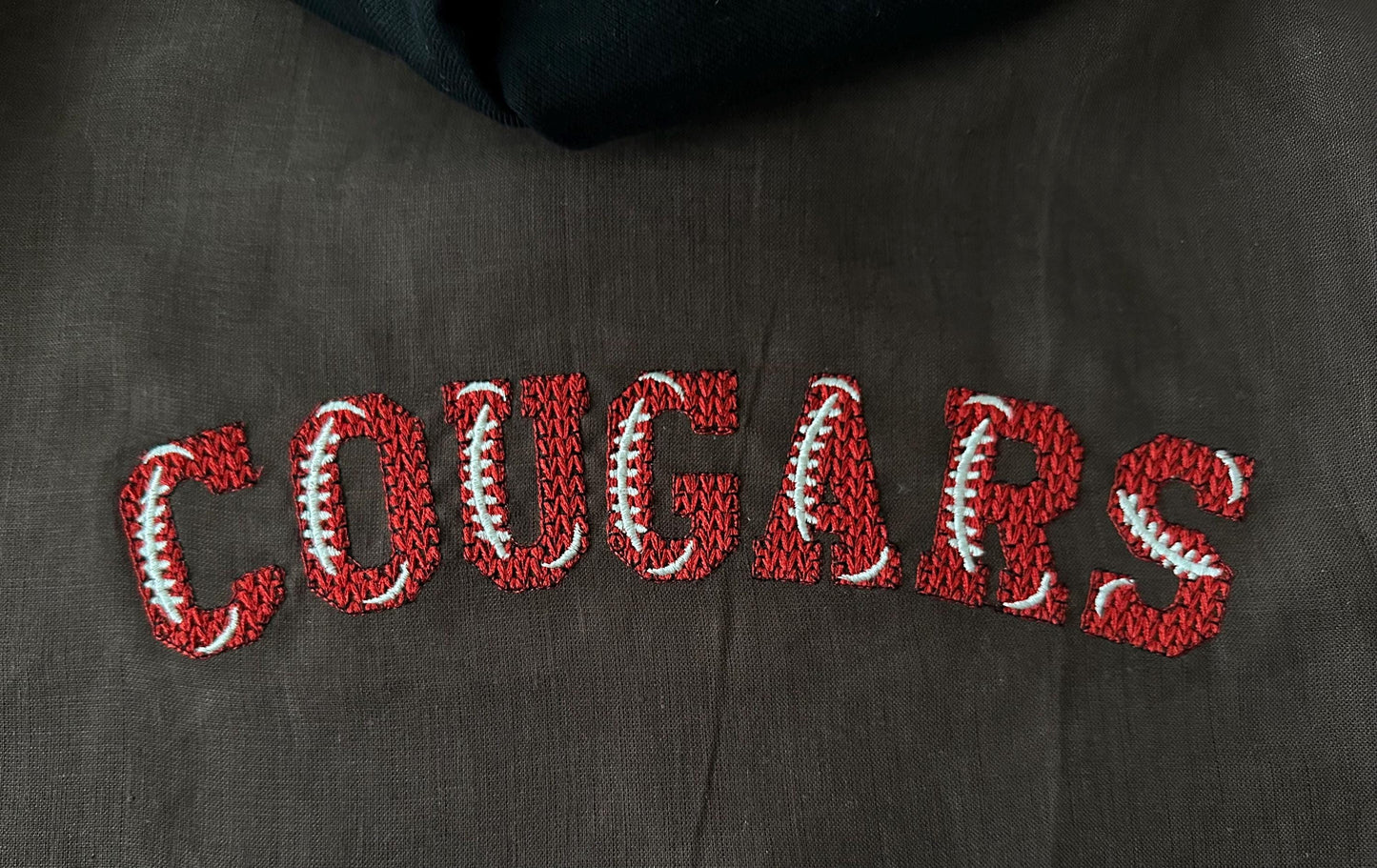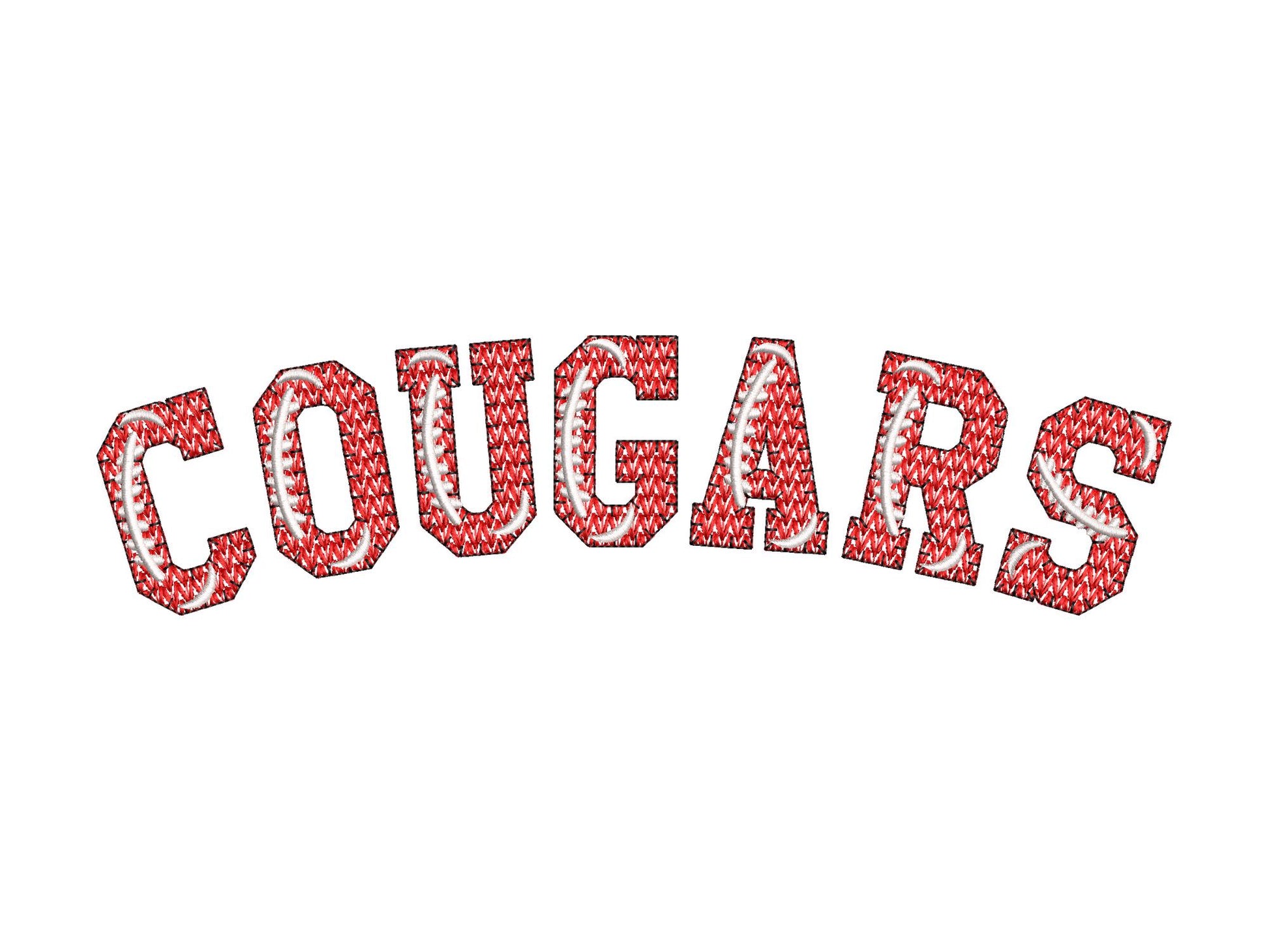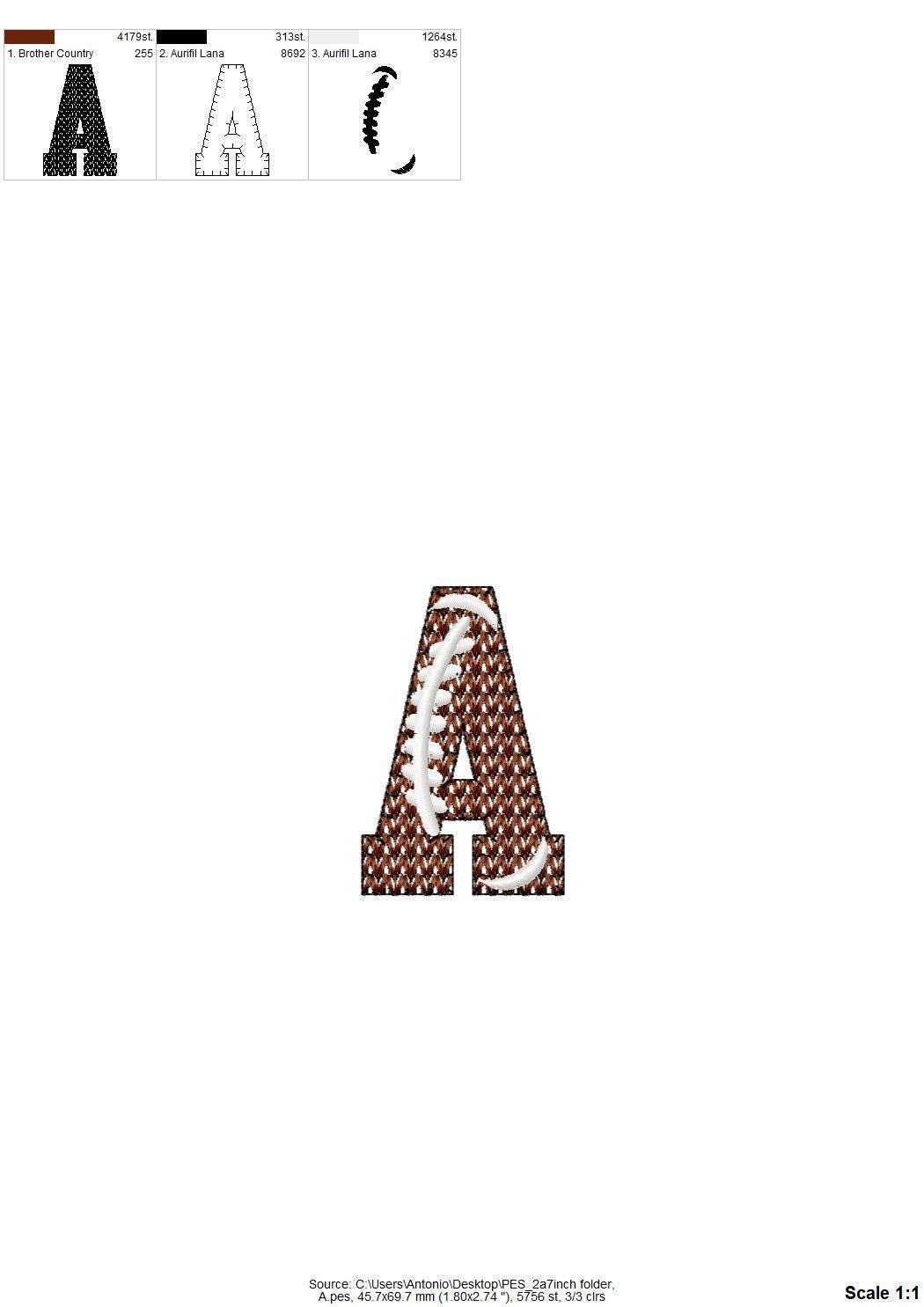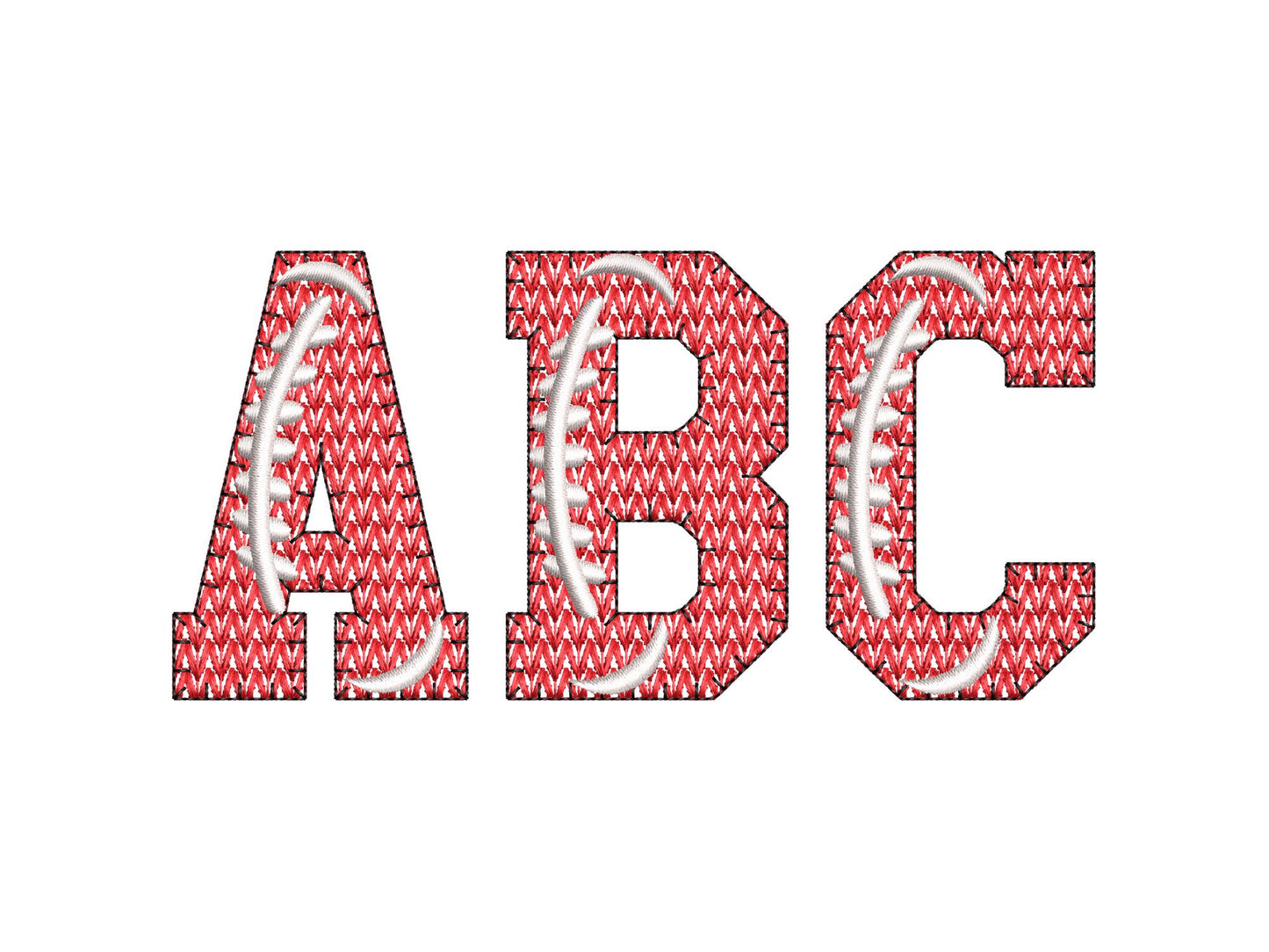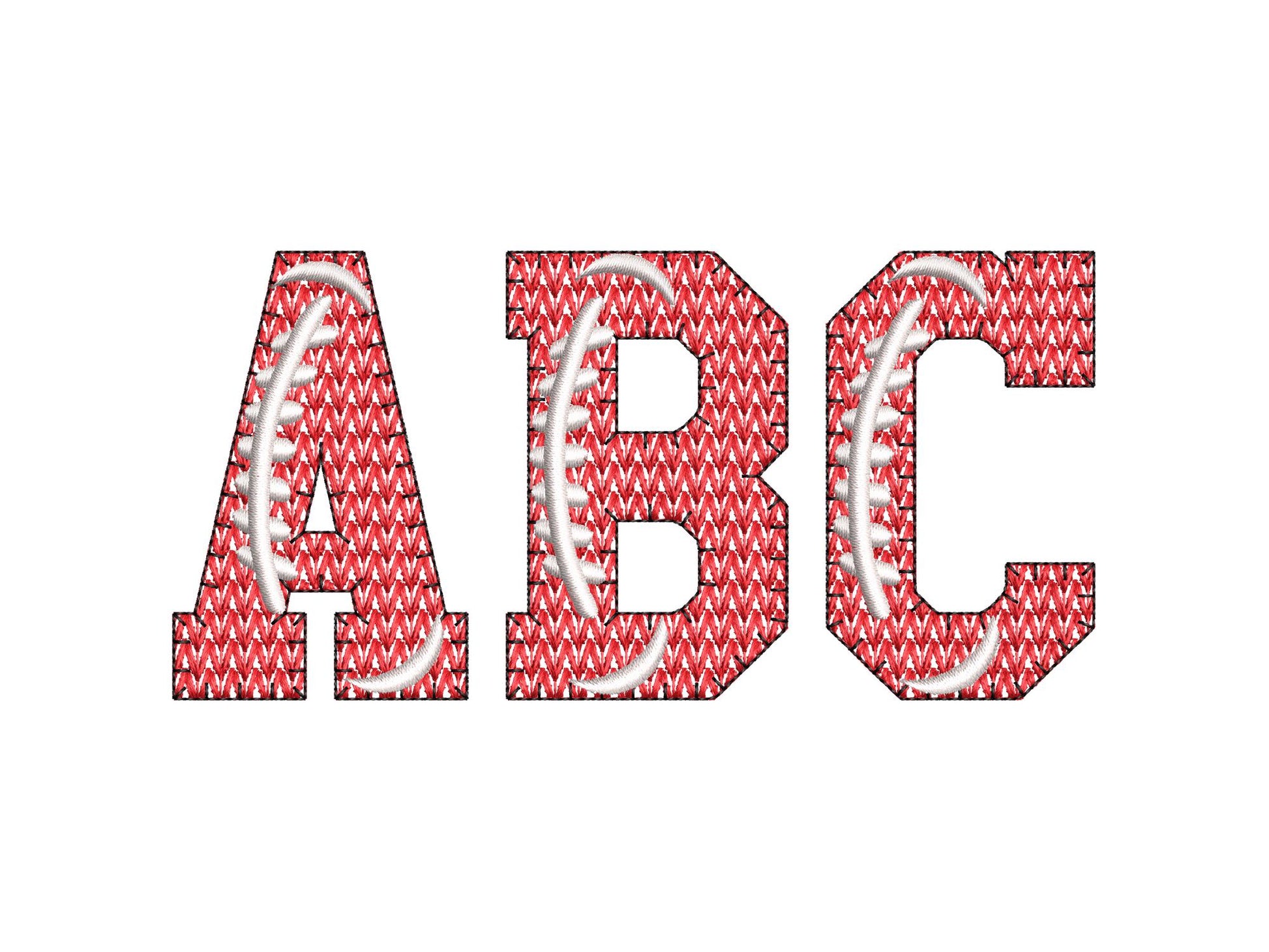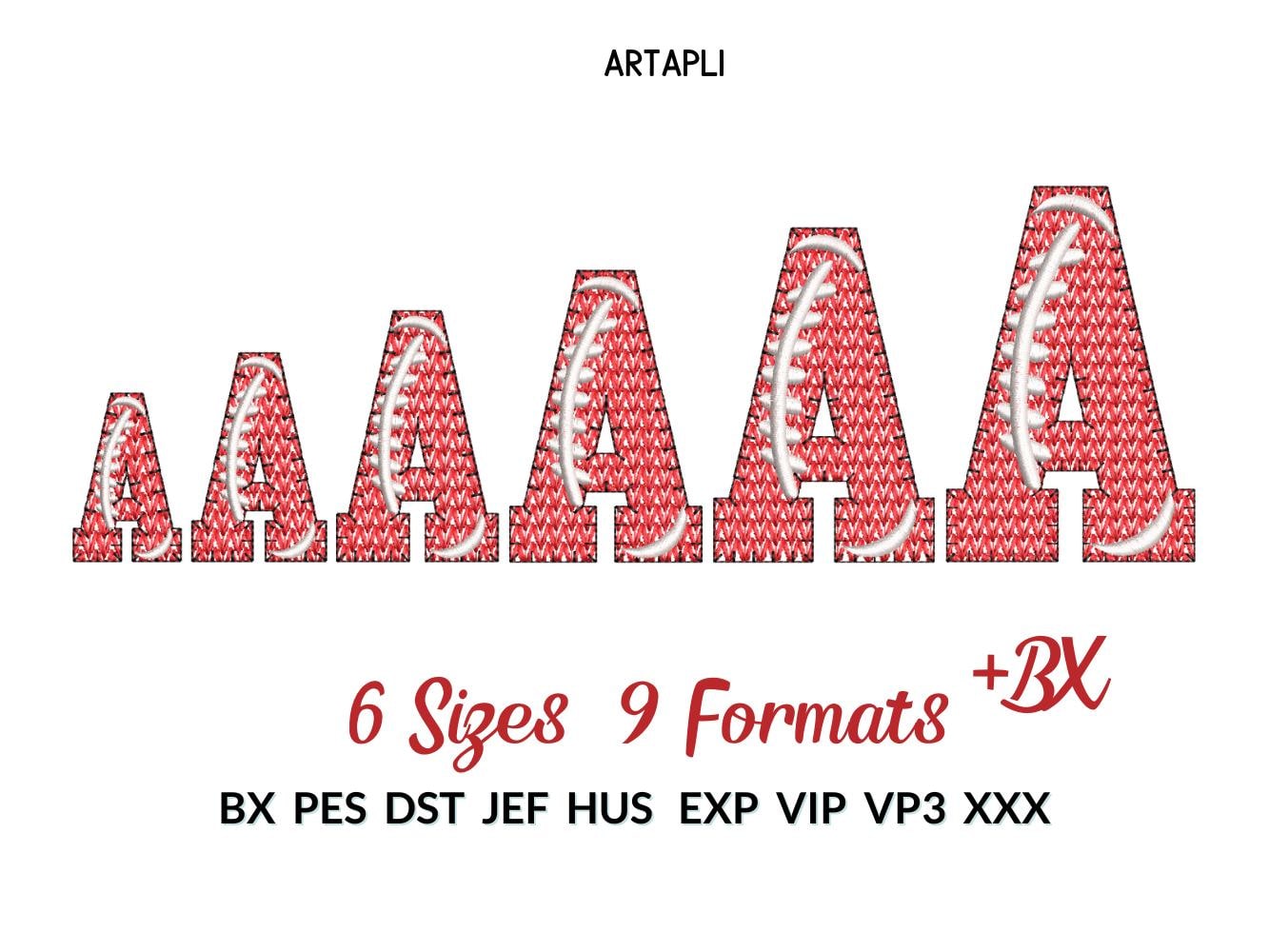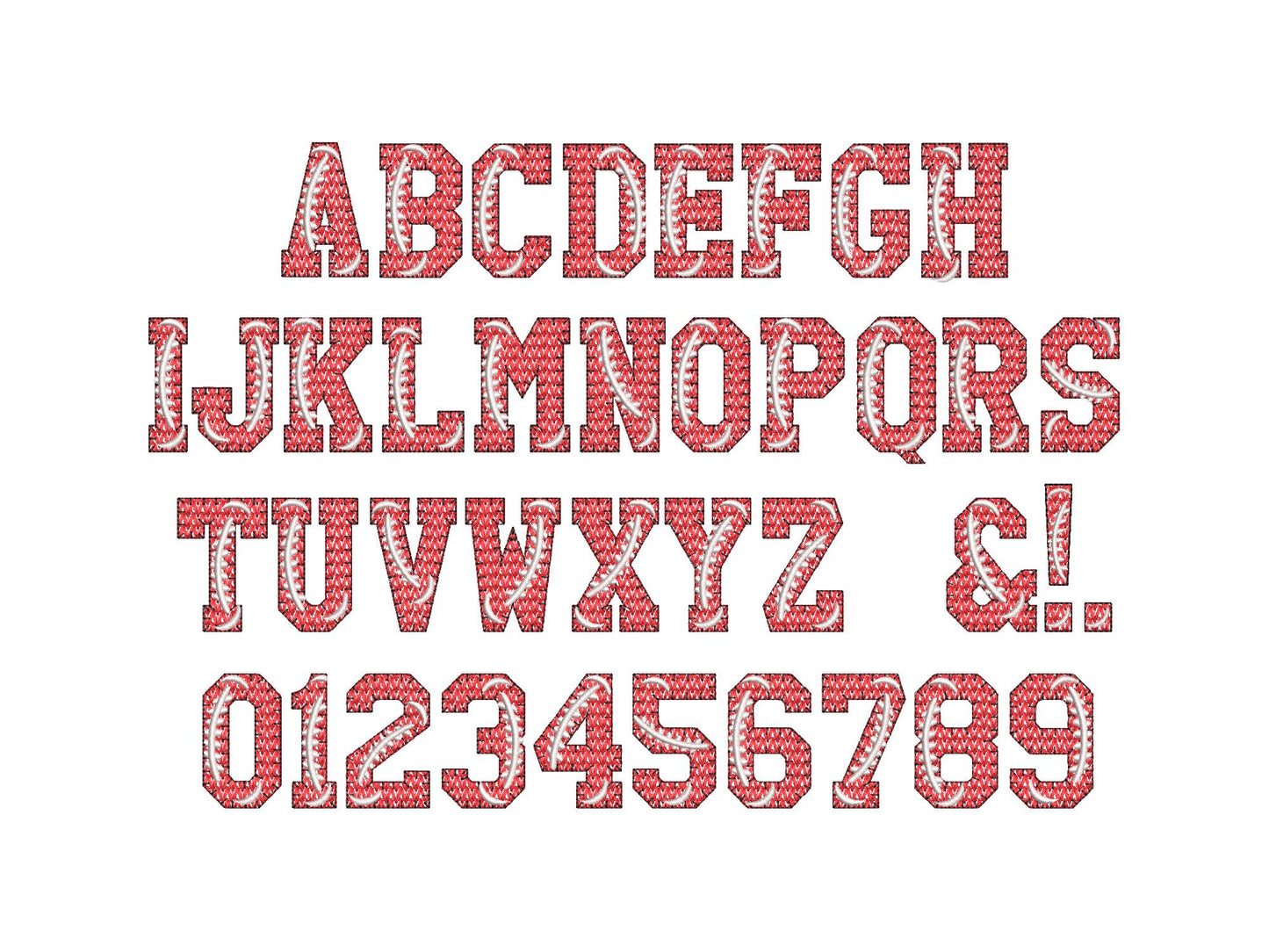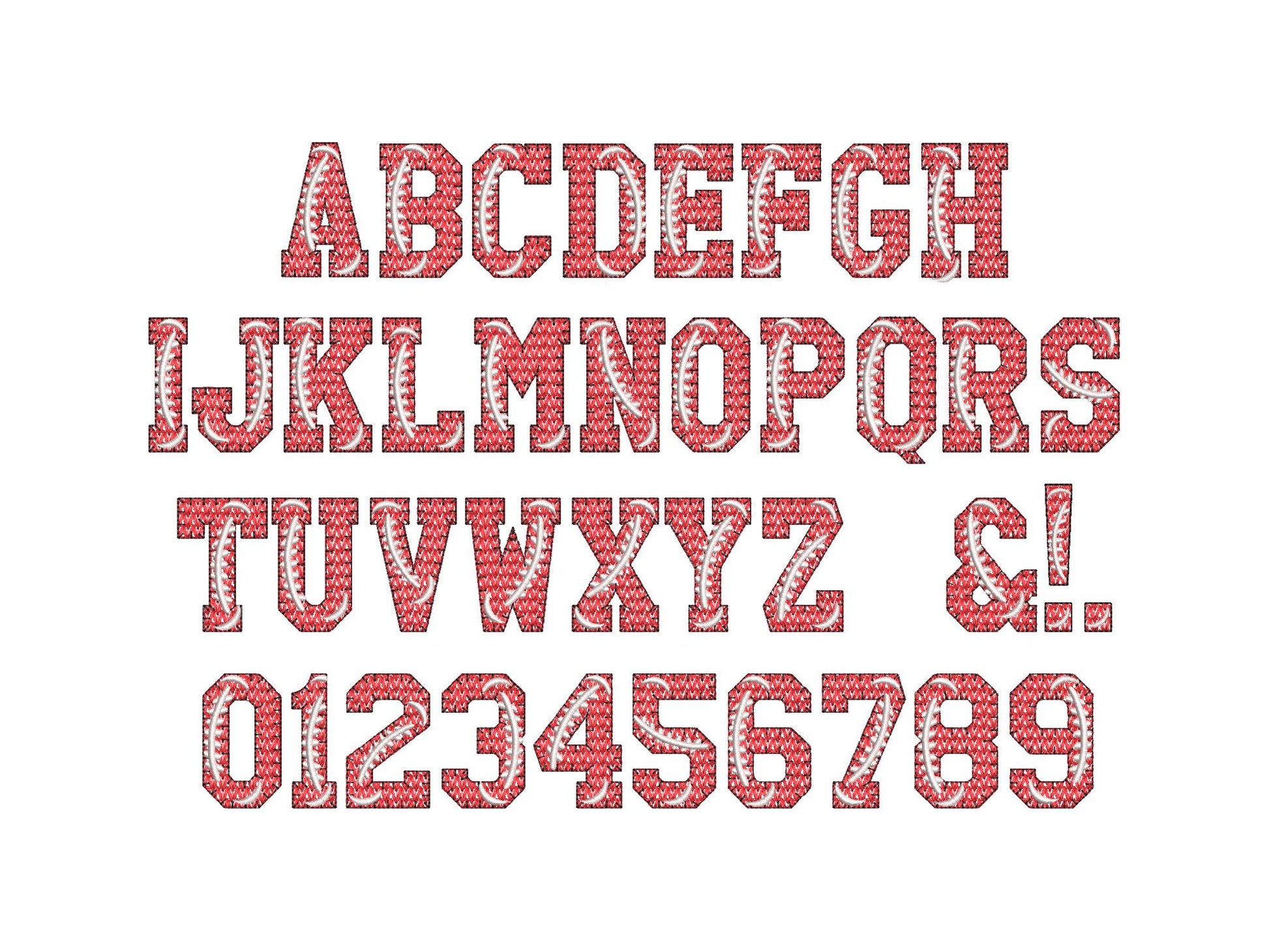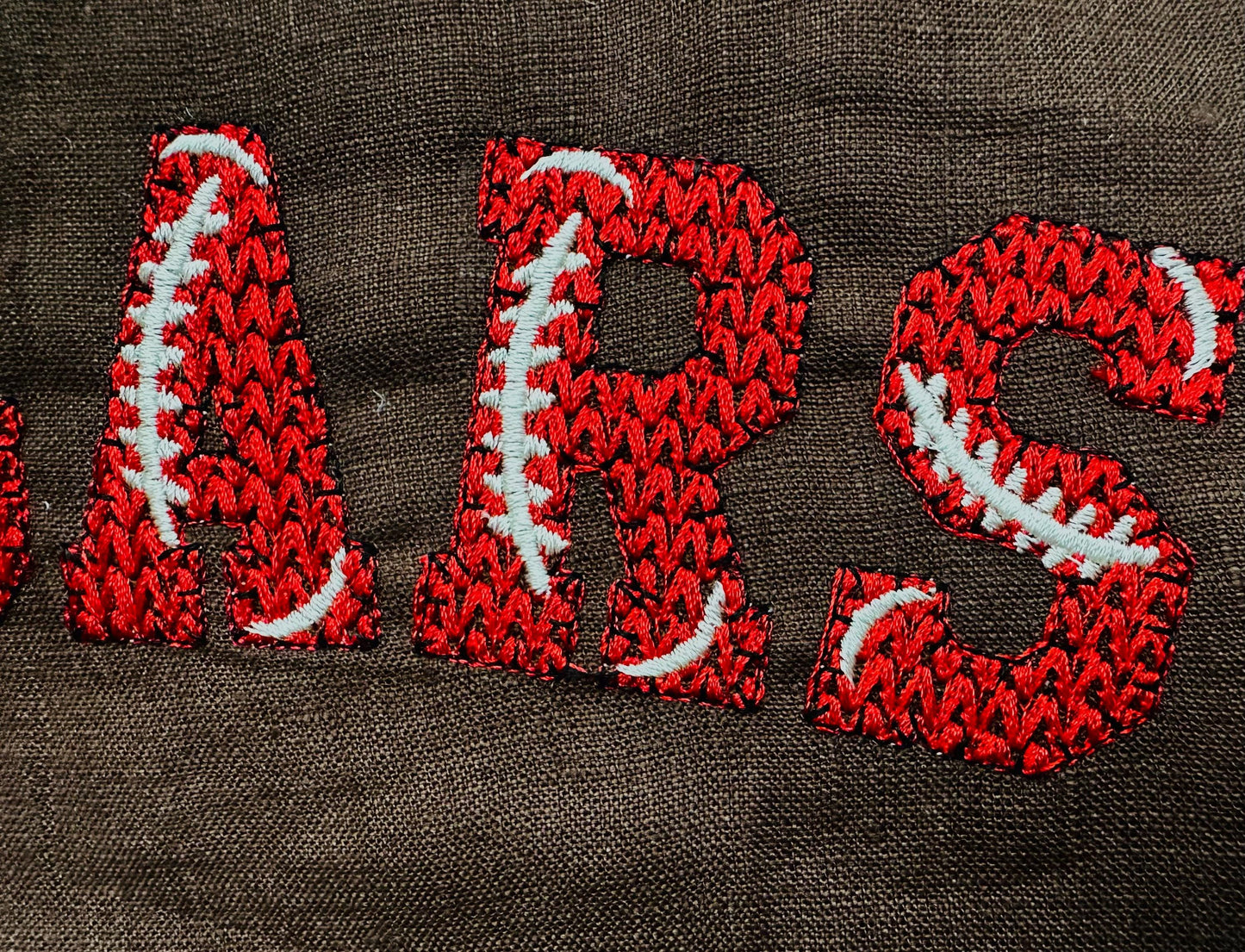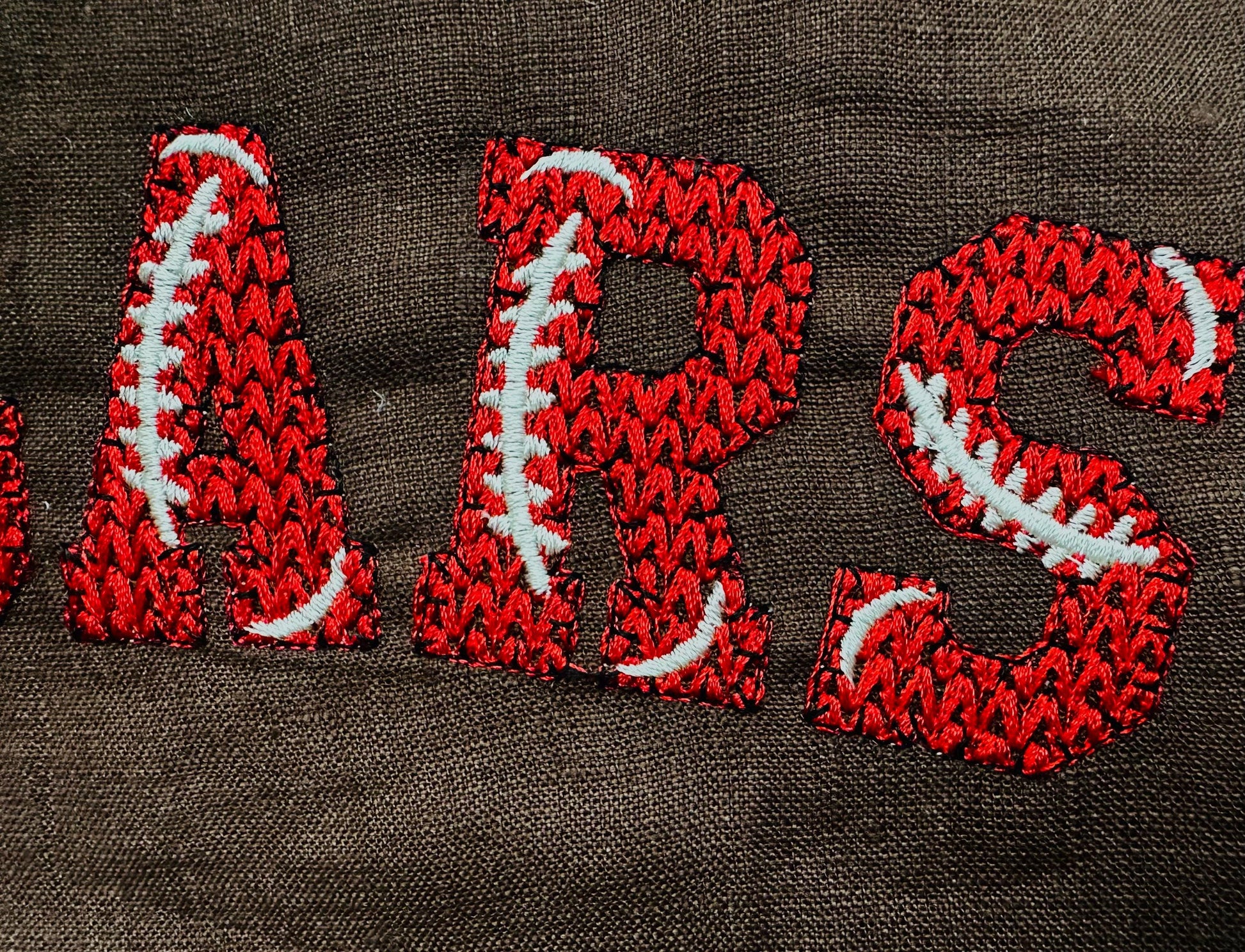
Or click to open the linkA varsity football font with a knit stitch fill, a hand-stitch outline and football seam details. Great for game day shirts, team names and sweatshirts.
Uppercase letters A to Z, numbers 0 to 9 and a few signs, in six sizes: 1.6, 1.9, 2.4, 2.7, 3.2 and 3.5 inches. The letters are see-through with a knitted texture.